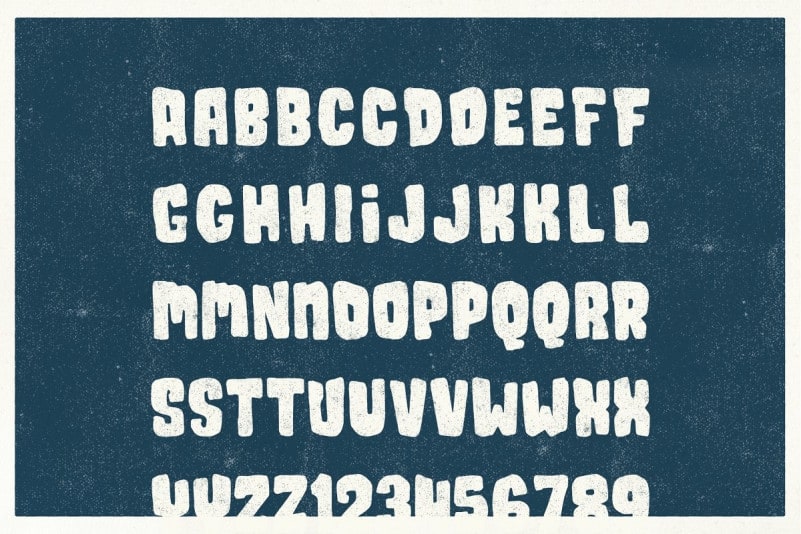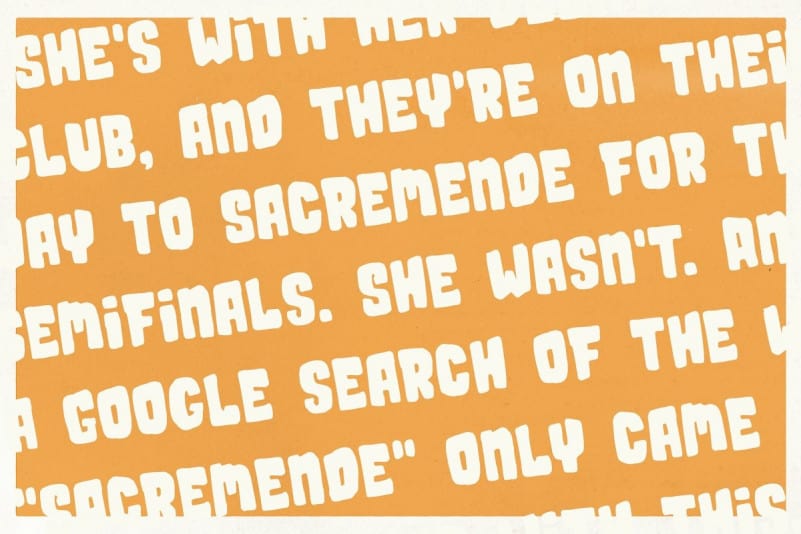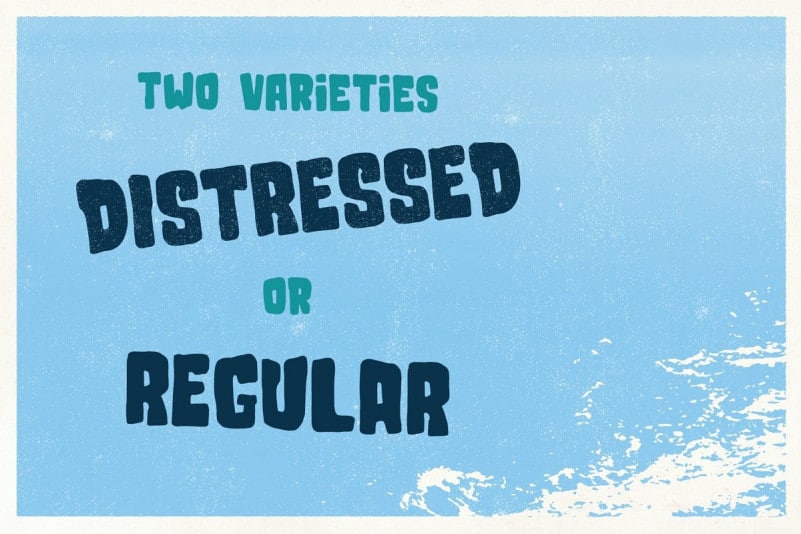
Sacremende Display Font
Sacremende Display Font is a condensed type family that includes 2 retro font styles you can use in your design projects to add a retro feel. It’s designed and shared by Lauren Ashpole. A chunky, slightly messy display font. As the name implies, this font was inspired by a retro California aesthetic and, in particular, old surf rock posters.
To highlight the vintage feel, the font package comes with a distressed option for a well-worn effect. This font is all caps but includes unique styles for upper and lowercase letters. The webfont kit includes both versions but for performance reasons, I would recommend using regular for the web.